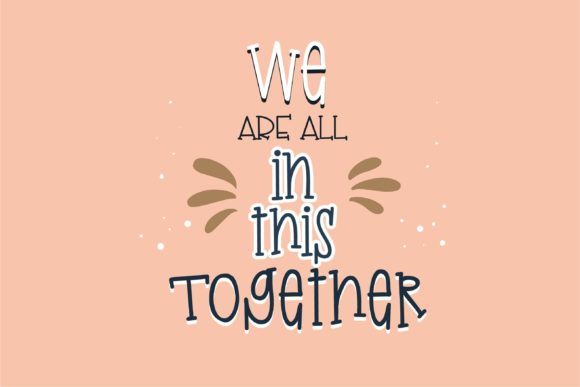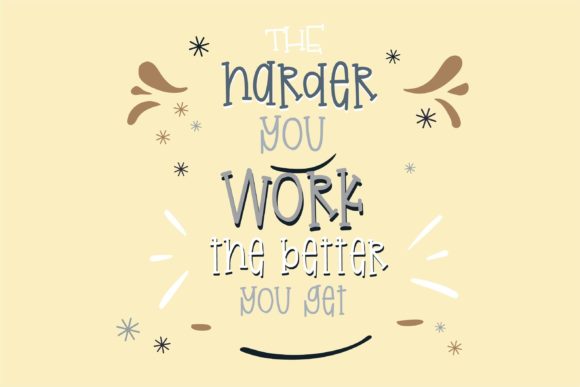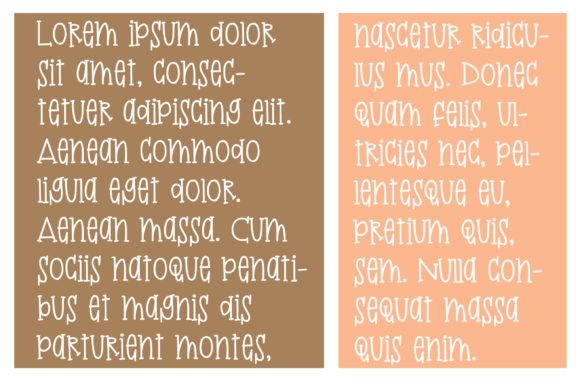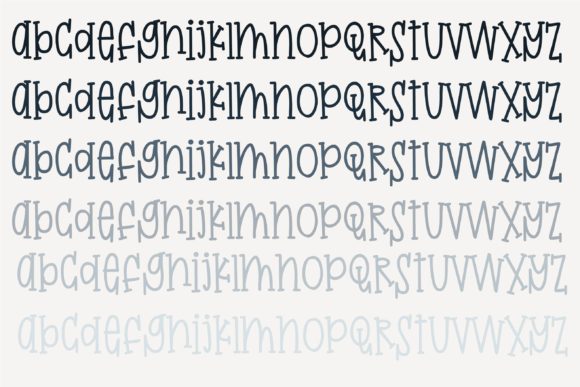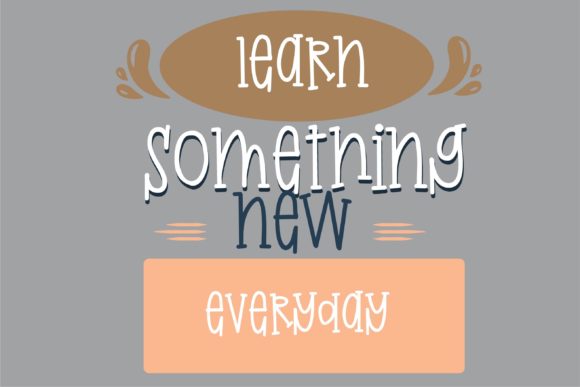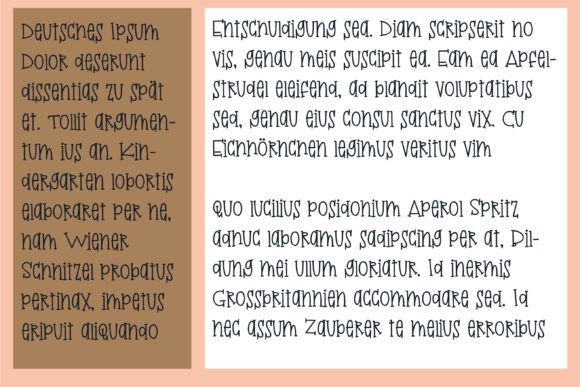
Introduction to Monkey Mail Font
Monkey Mail is a trendy and chic serif font.
It will add friendliness to any of your design projects This font can be used to write various kinds of products according to the aspect of each need.
Key Features of Monkey Mail Font
Why Choose Monkey Mail Font?
Monkey Mail Font offers exceptional quality and versatility, making it a valuable addition to your design toolkit. Whether you’re creating for personal projects or commercial use, Monkey Mail Font delivers professional results.